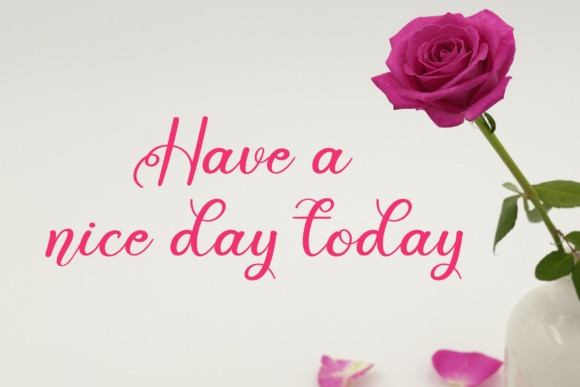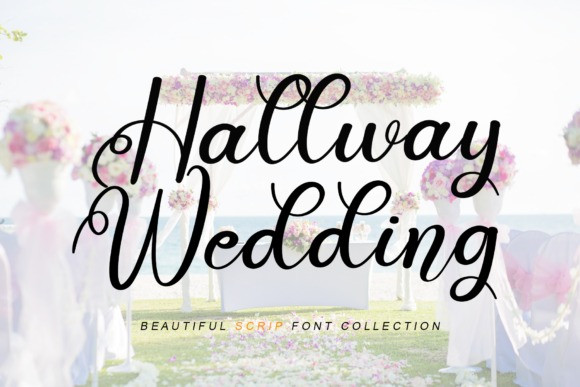
Hallway Wedding Script Font
Hallway Wedding is a romantic and sweet calligraphy typeface with characters that dance along the baseline. It will add a luxury spark to any design project that you wish to create!